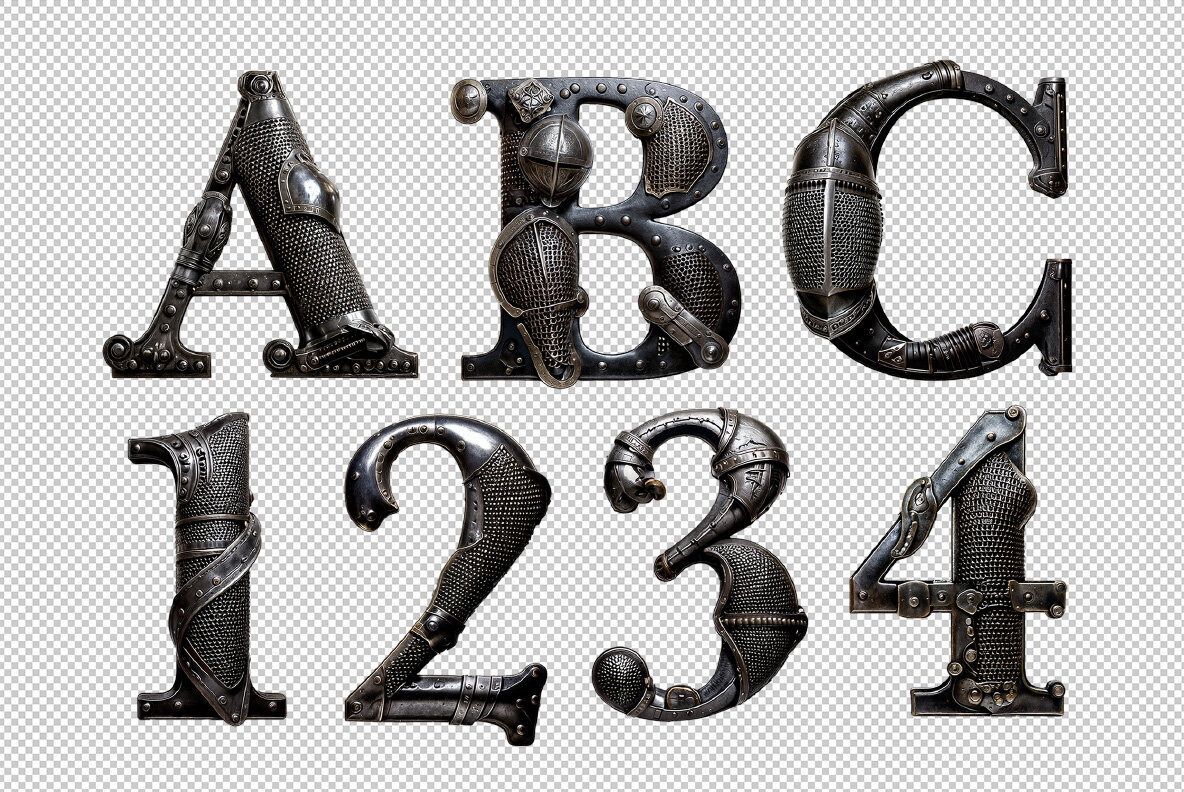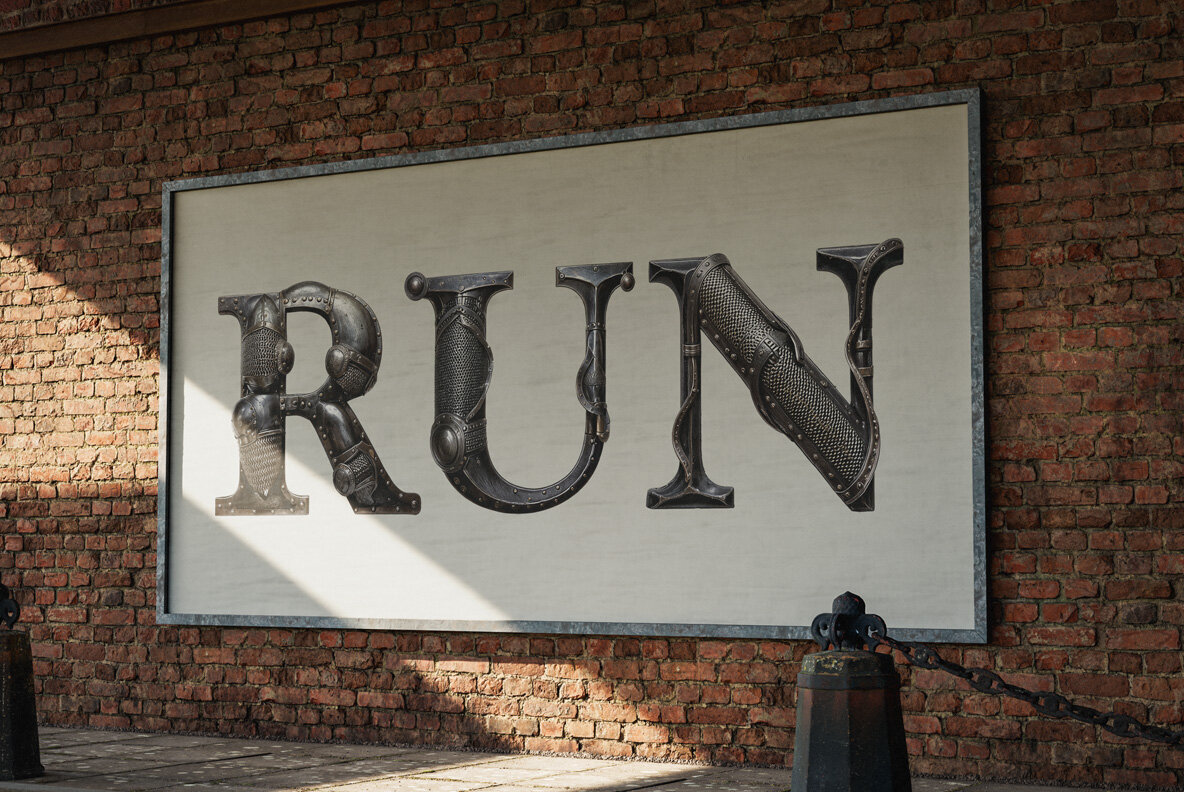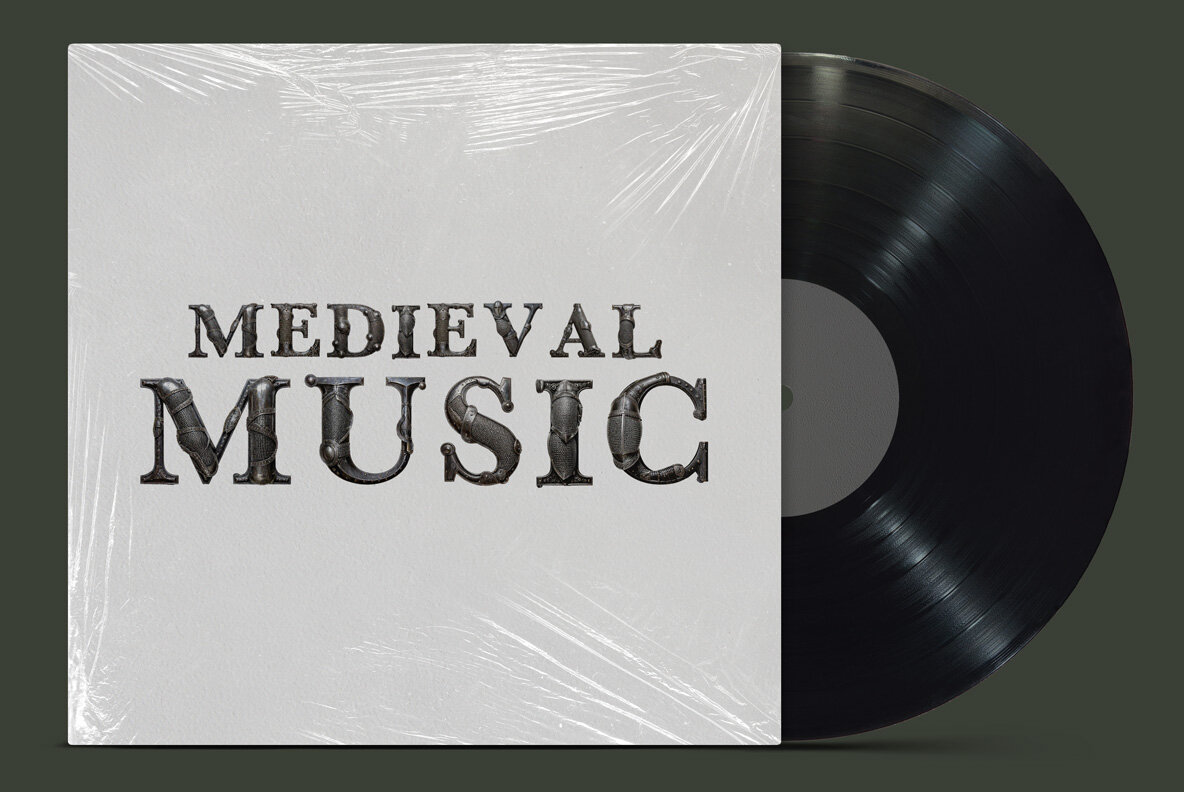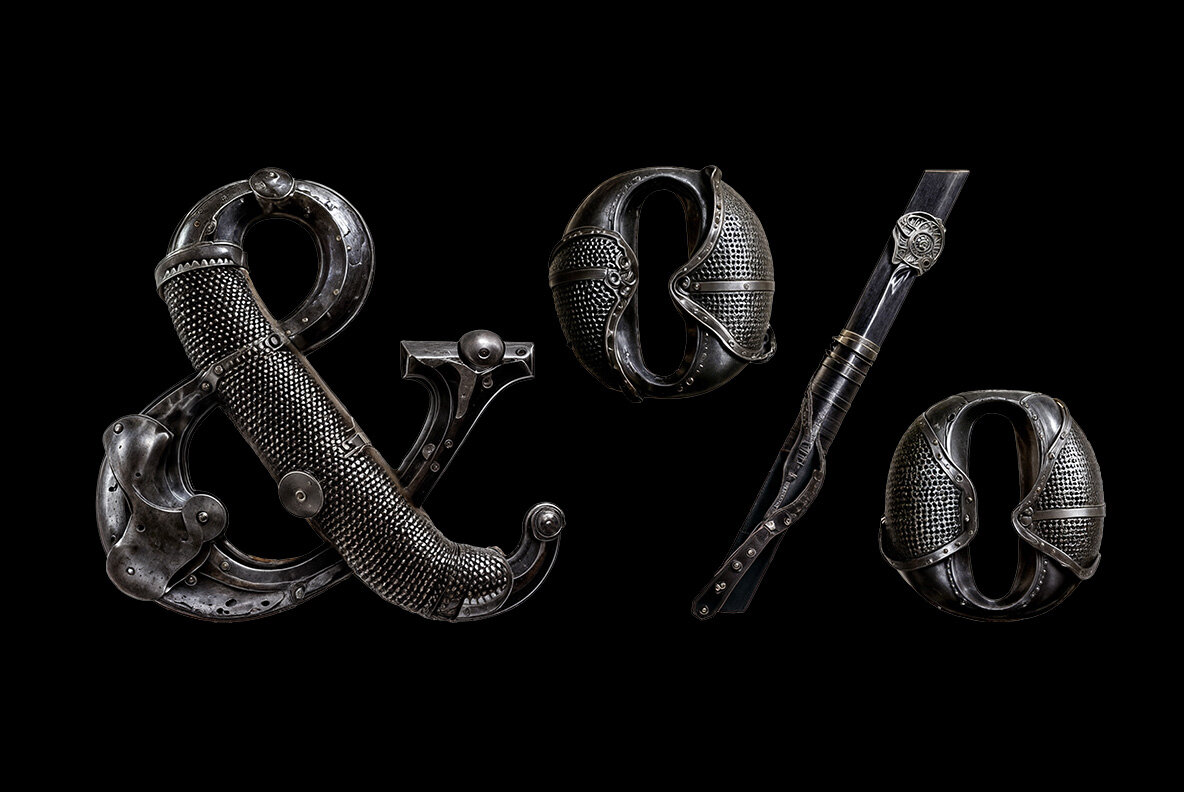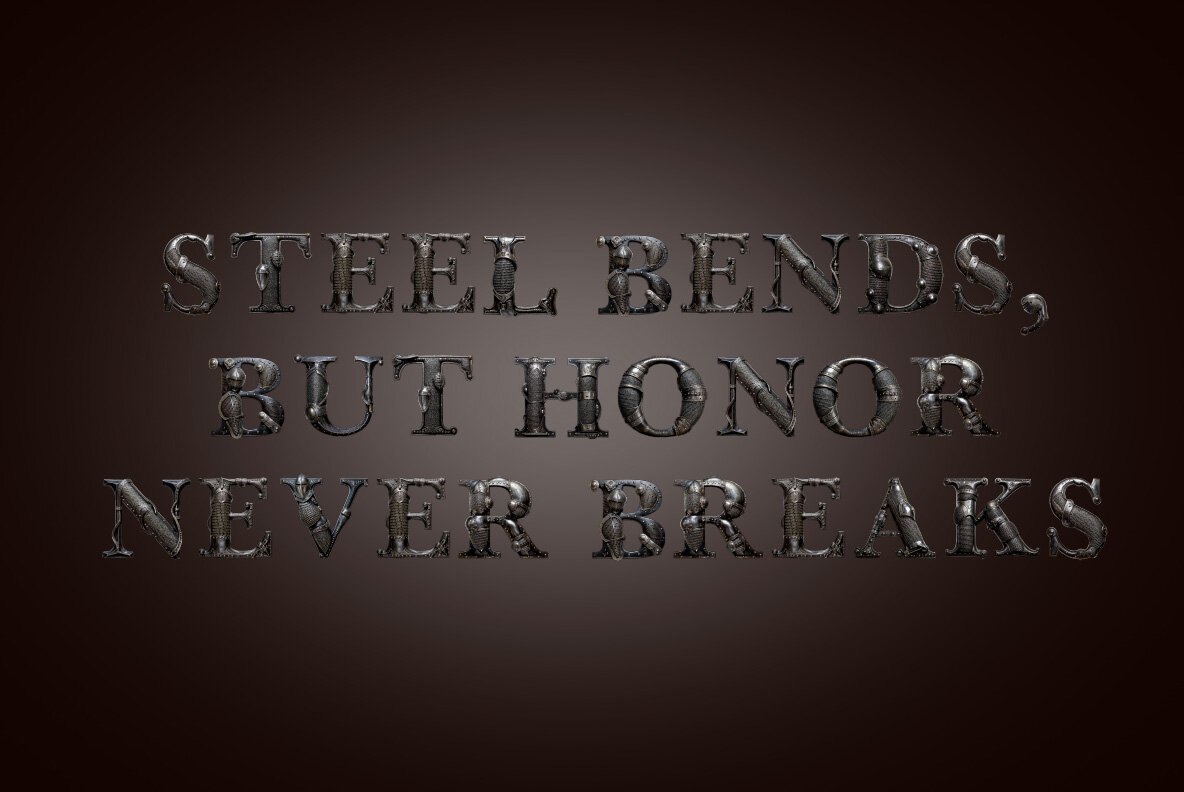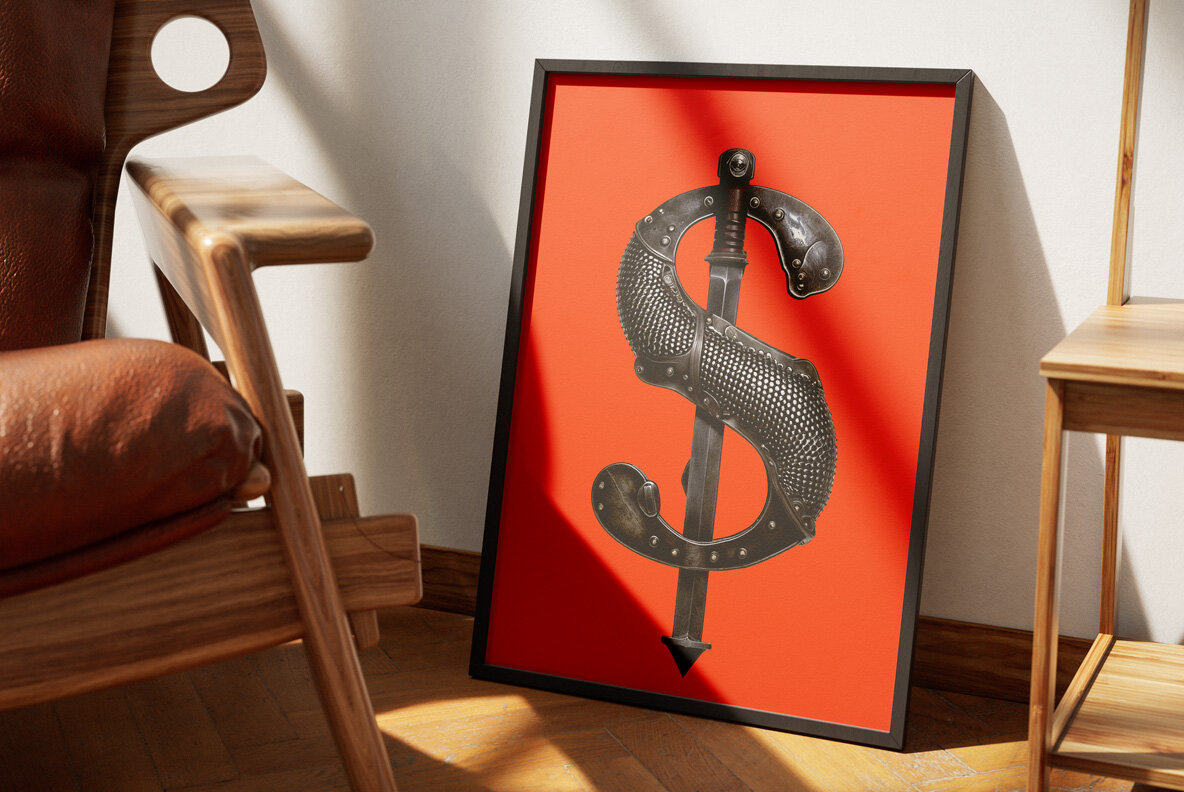
Knight Armor Font merges the regal allure of metal craftsmanship with striking typography, embodying the valor and strength of medieval chivalry. Each letter is meticulously crafted from dark steel with reinforced rivets, adorned to mimic battle-ready armor. Picture an alphabet that exudes the ability to wield a sword, deflect arrows, and gallop into battle. With chainmail-inspired curves, helmeted uppercase characters, and shoulder-plated serifs, this bold typeface defies mundane design, offering a true embodiment of knightly spirit. Whether evoking the epic tales of medieval warriors or simply adding an indomitable look to your words, Knight Armor Font valiantly leads your visual storytelling.